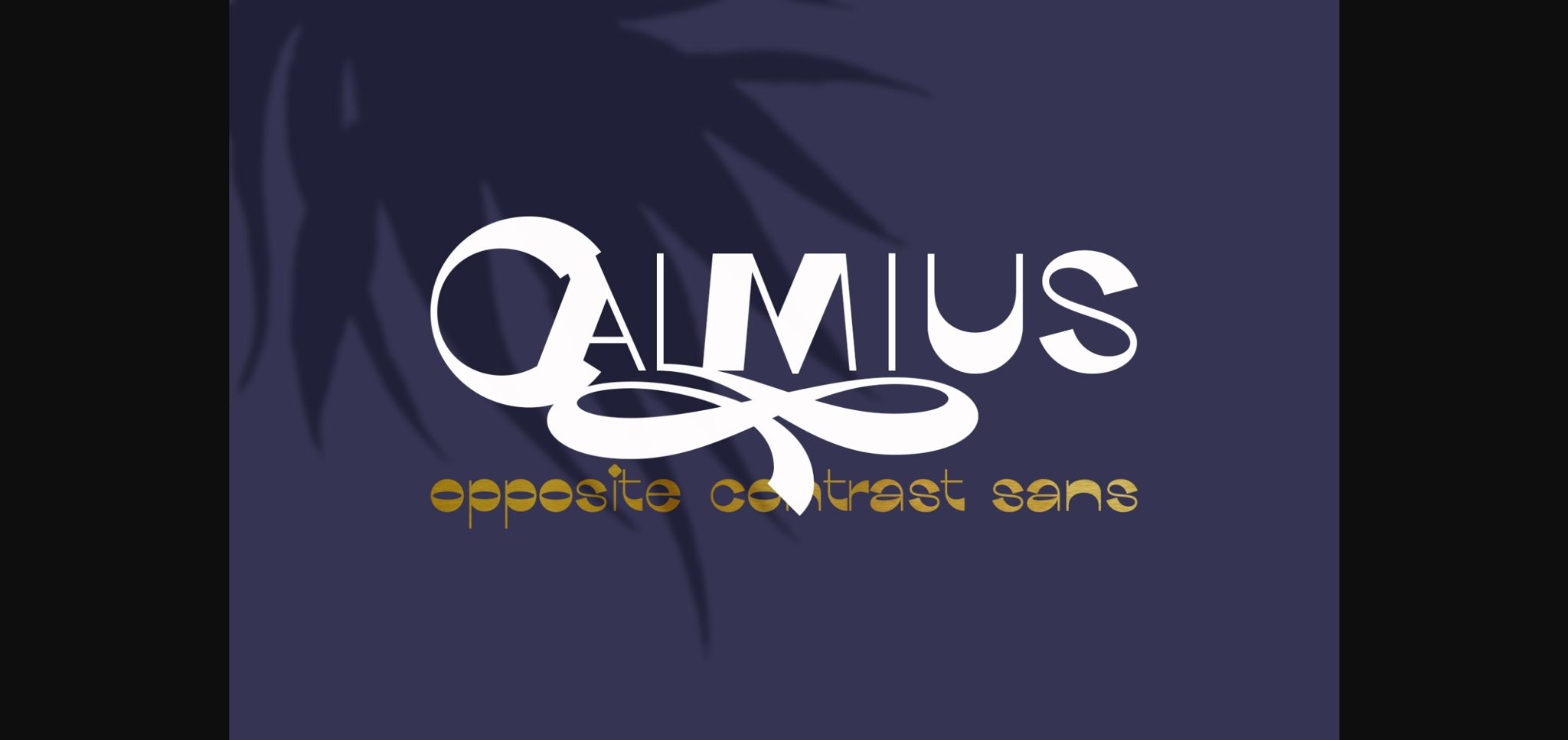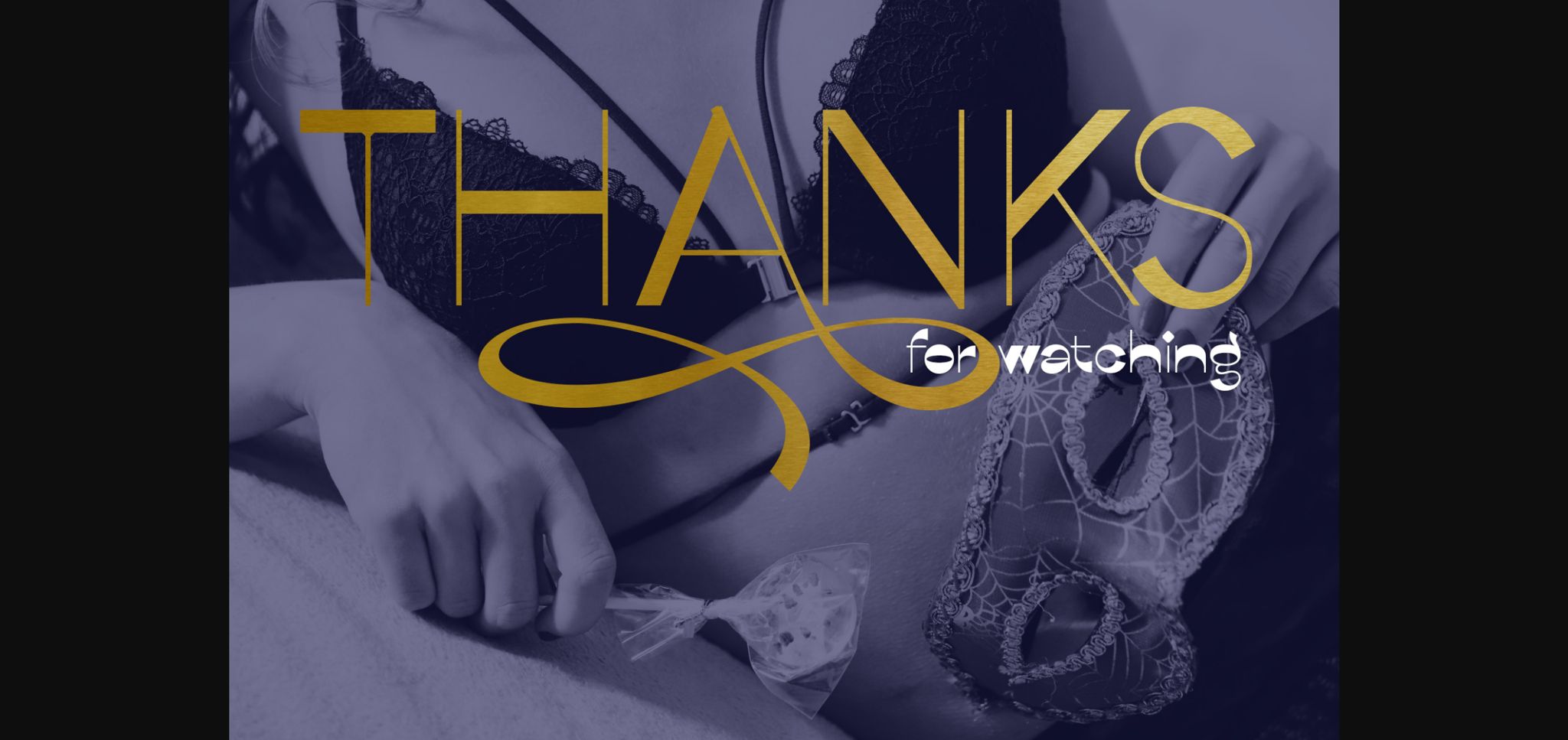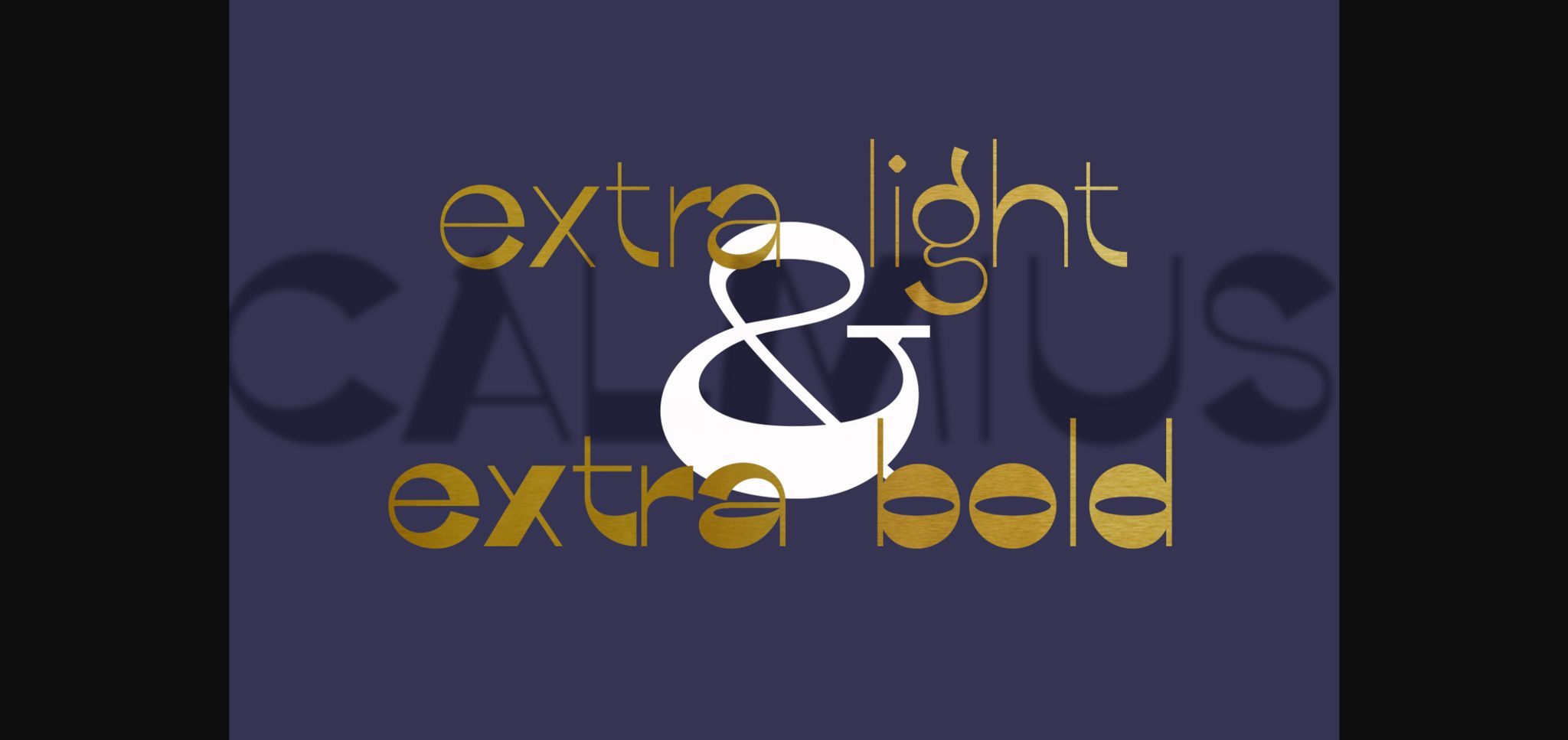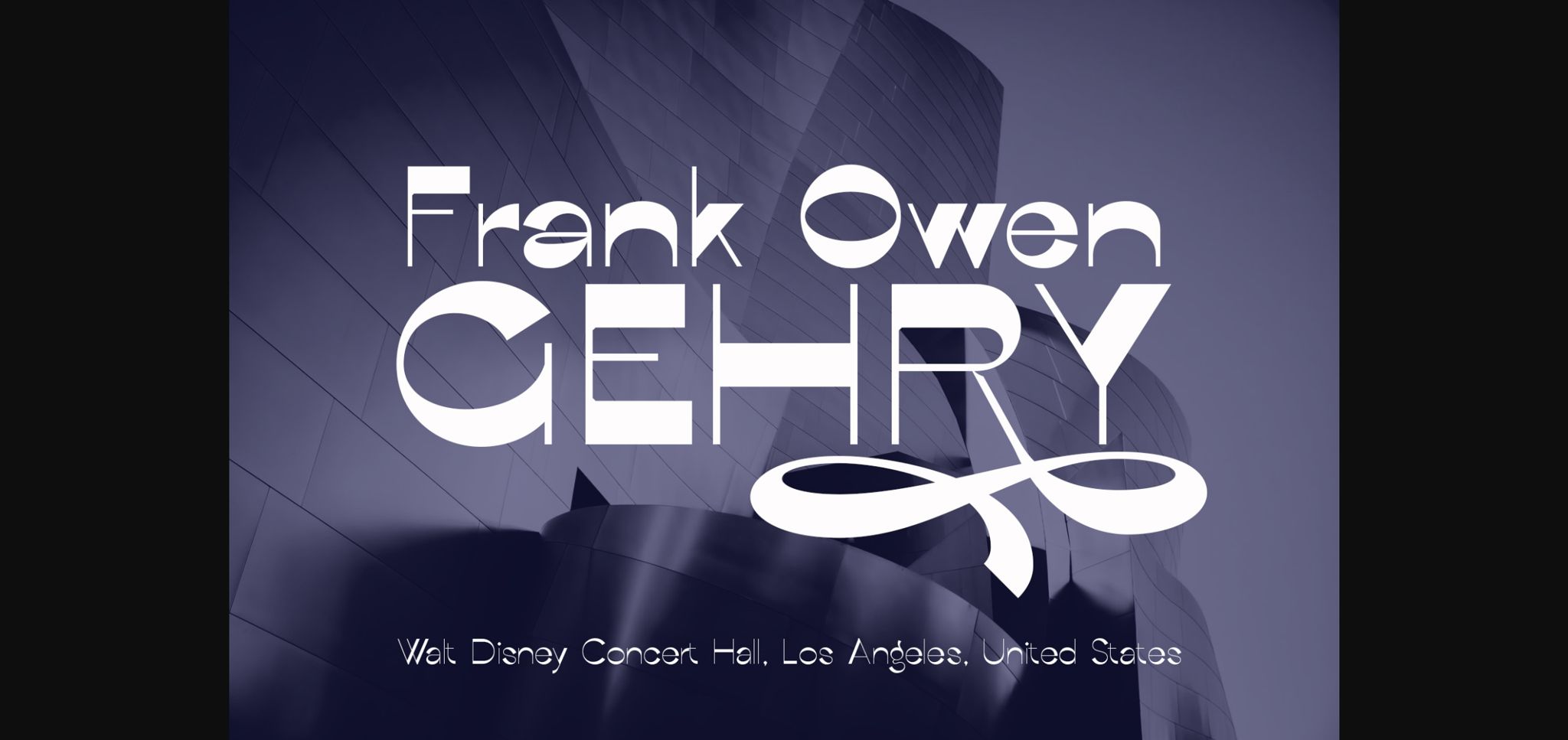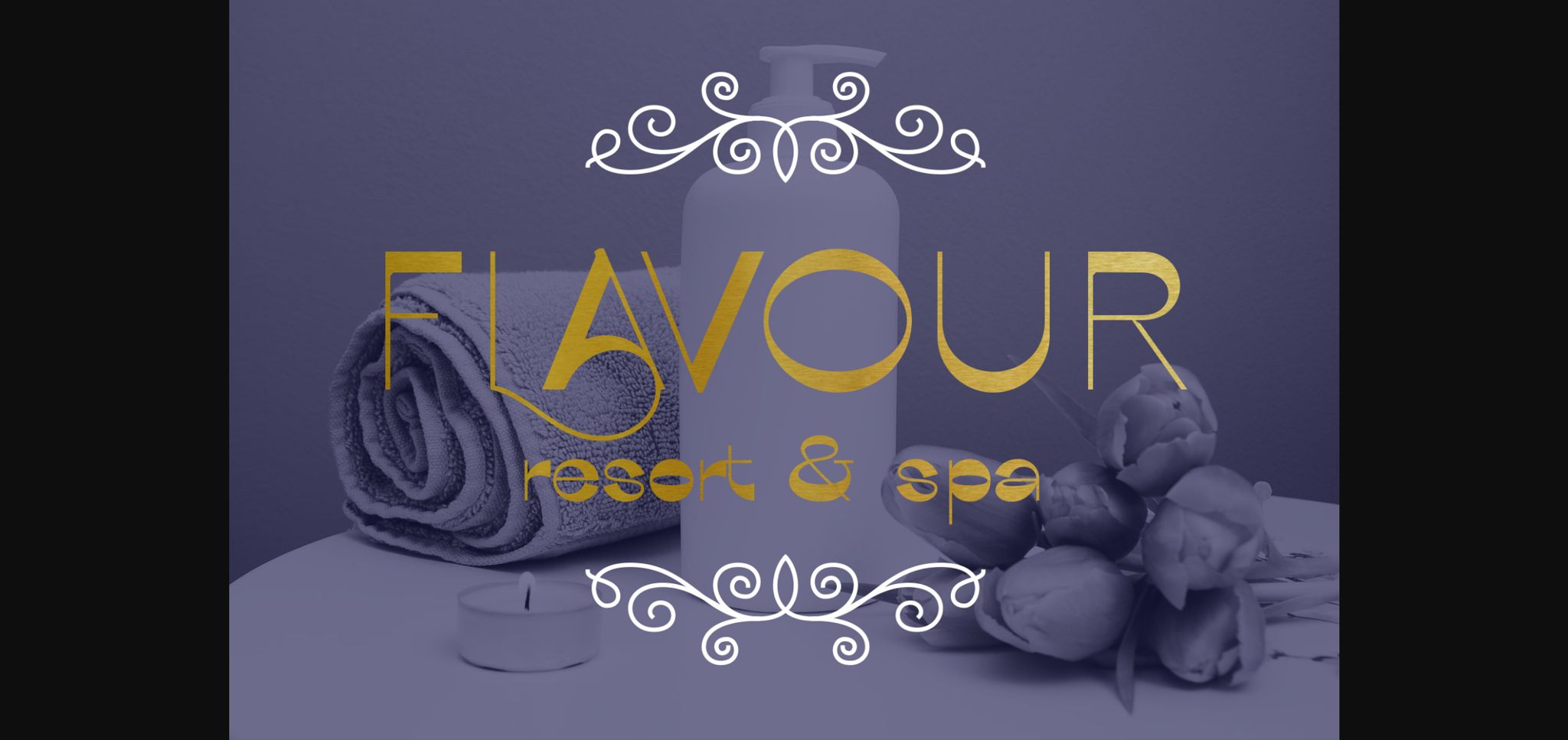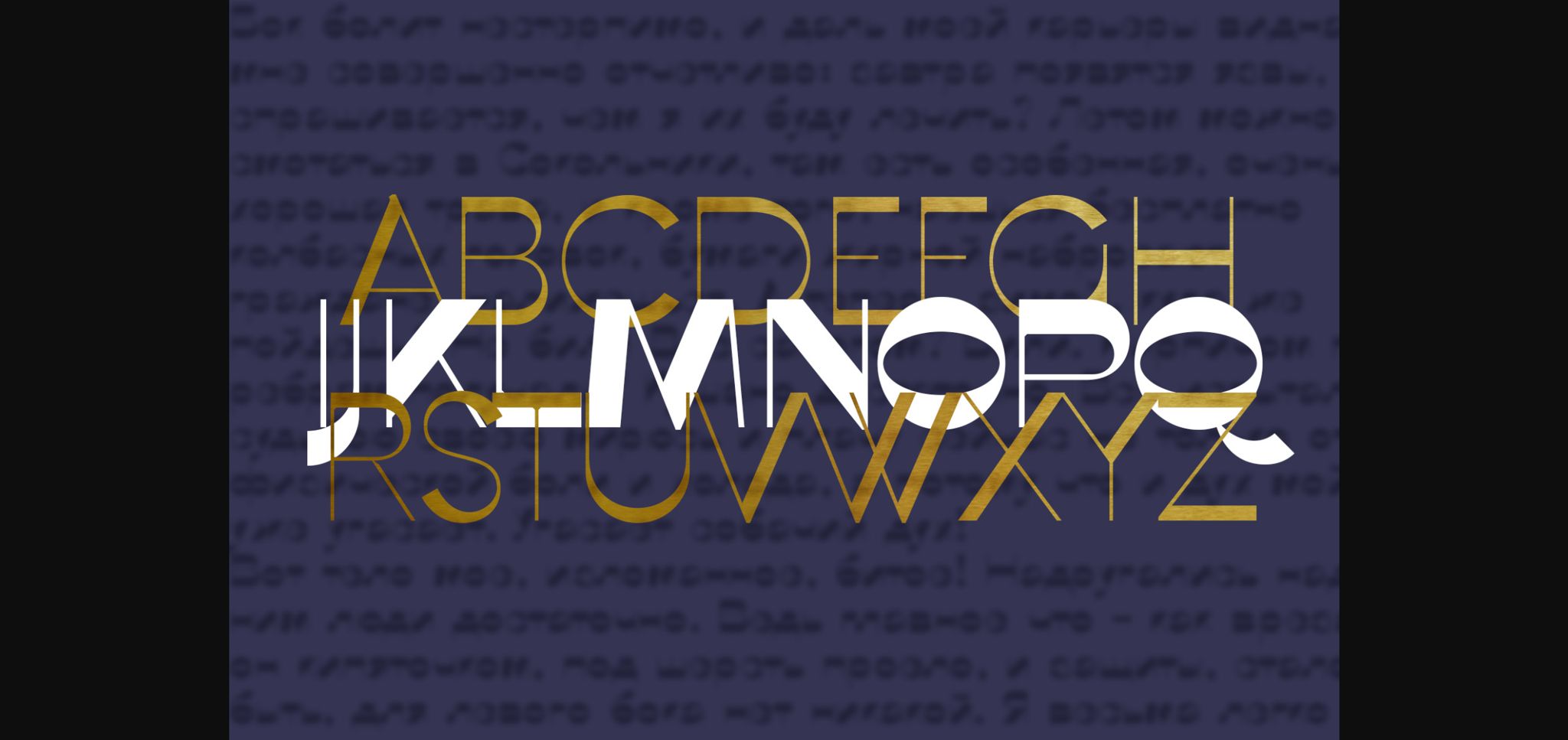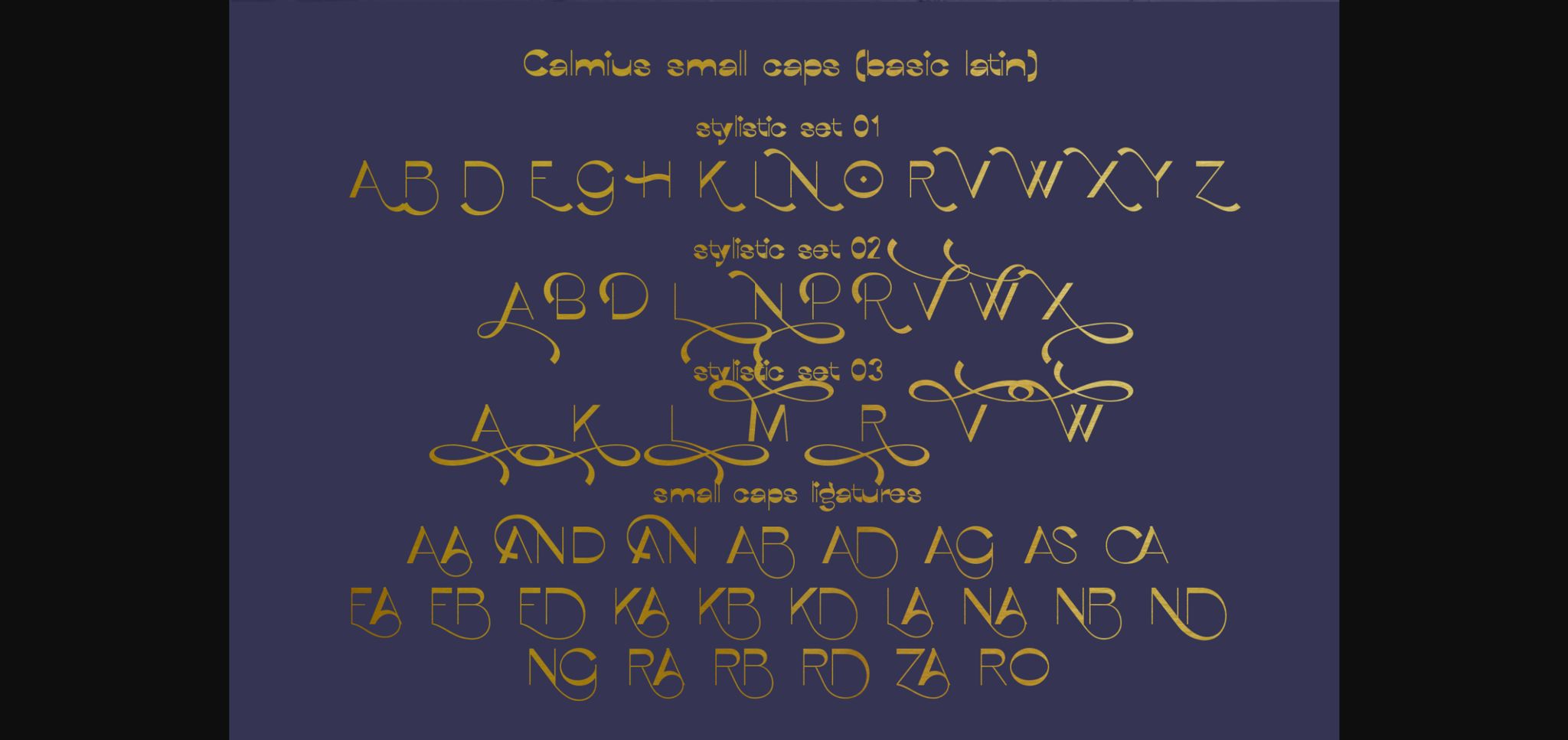
HomeSans Serif FontsCalmius Font Sans Serif Fonts Calmius Font FacebookXPinterestWhatsApp 1 of 10 ... Calmius Font Poster 2... Calmius Font Poster 3... Calmius Font Poster 4... Calmius Font Poster 5... Calmius Font Poster 6... Calmius Font Poster 7... Calmius Font Poster 8... Calmius Font Poster 9... Calmius Font Poster 10... About Calmius Font Calmius is an incredibly modern and stylish sans serif font. This original look will appeal to a wide range of crafty ideas, from letterheads and titles, to stationery. DOWNLOAD NOW People also explored Beautylove Font Ebony Font Cute Cactus Font Ribbon Luxury Font Jayden Font Melinda Font Fancylate Font Angelista Font Handita Font 297 0 TagsCalmiusCalmius Font Previous articleVallèn FontNext articleFegirolst Font LEAVE A REPLY Cancel reply Comment: Please enter your comment! Name:* Please enter your name here Email:* You have entered an incorrect email address! Please enter your email address here Website: Save my name, email, and website in this browser for the next time I comment. Personal Use Free Adeline Personal Use Free Read more about this font Strings Personal Use Free Read more about this font Jabirah Personal Use Free Read more about this font Bigstone Personal Use Free Read more about this font BLOG Fonts That Capture the Spirit of New York City New York City is more than just a place—it’s an experience, a rhythm, a visual language... 5 Fonts That Will Dominate Design Trends in 2026 How to Install and Use Fonts on Windows, macOS, and Web Projects Free vs Paid Fonts: Why Investing in Premium Fonts Is Worth It